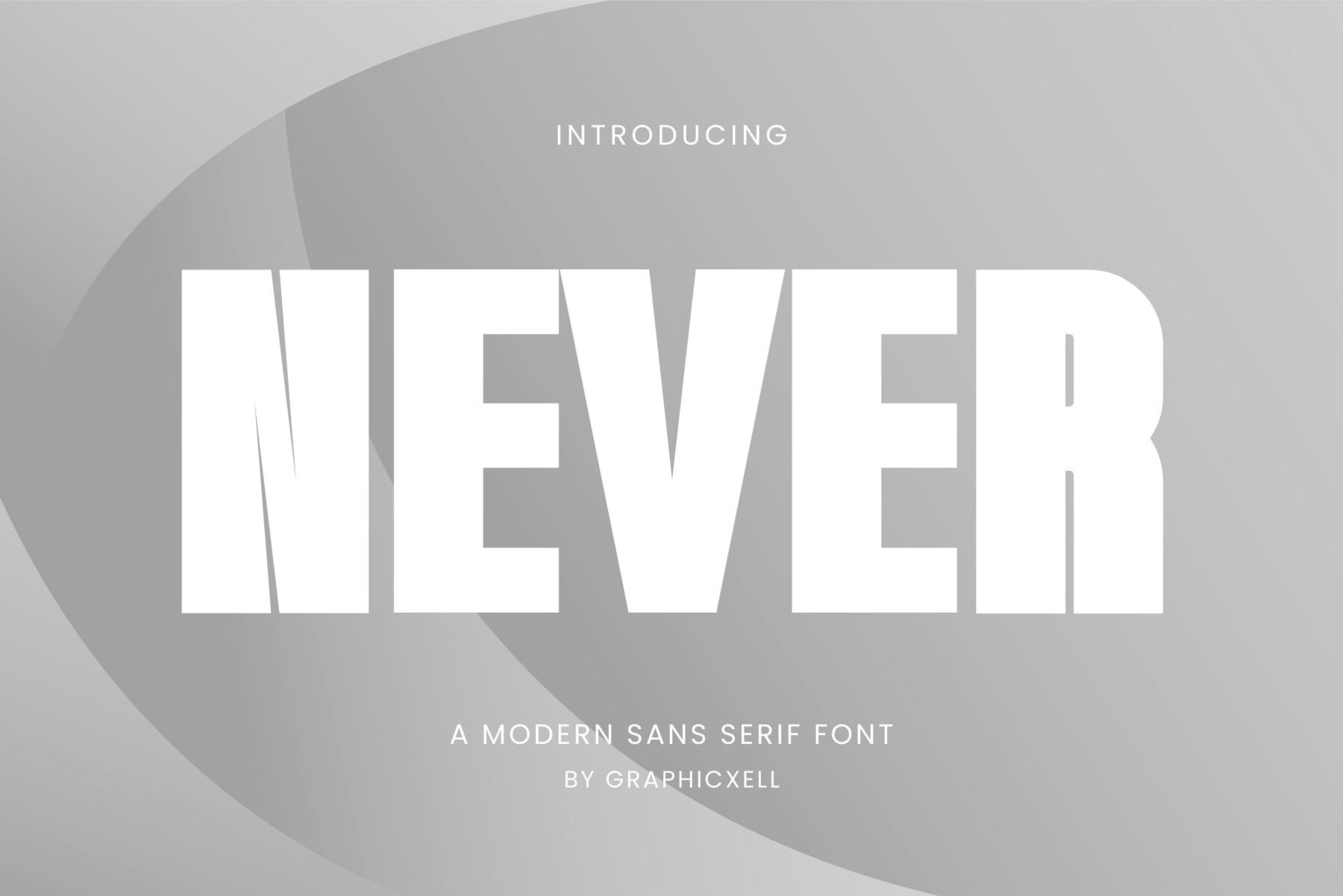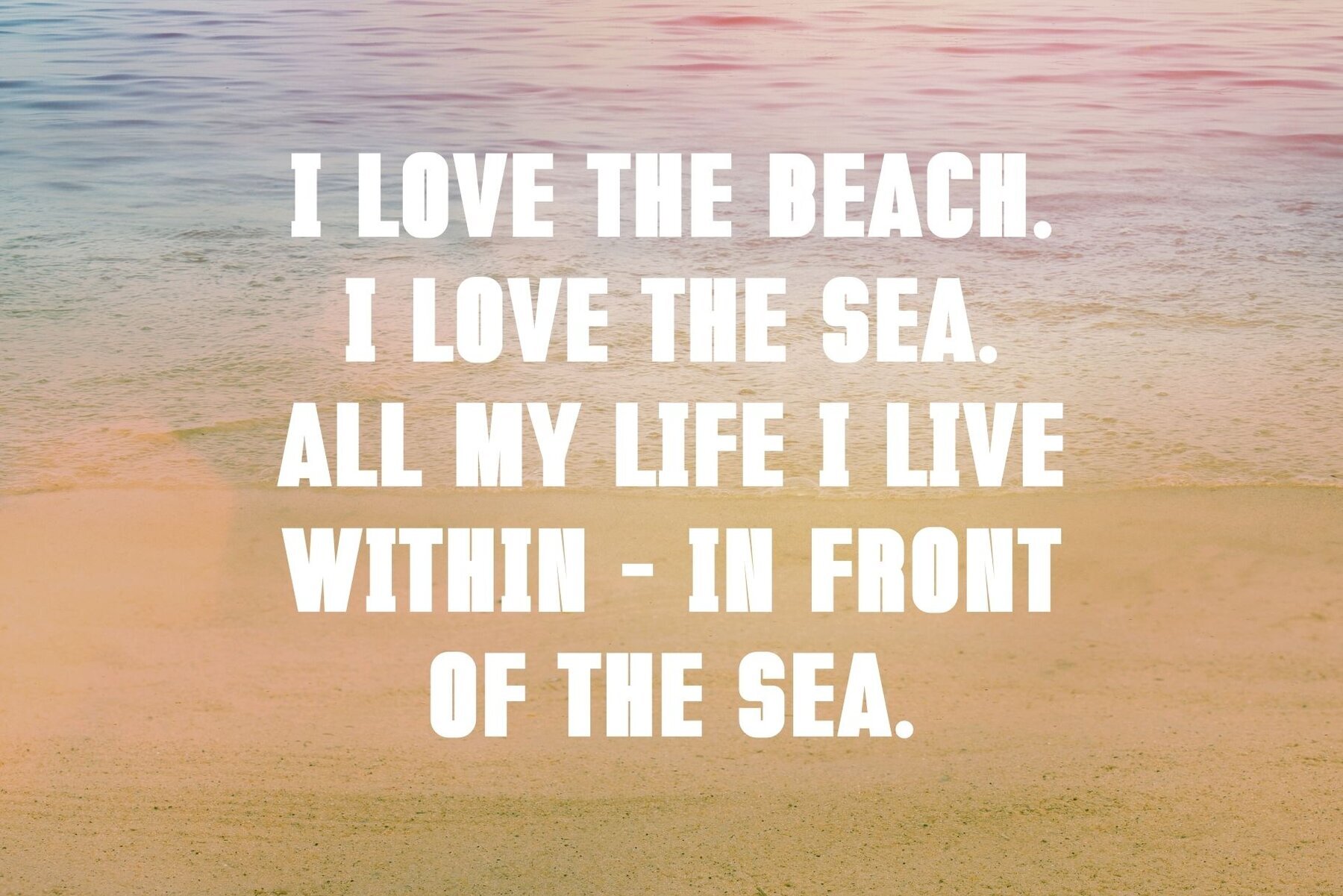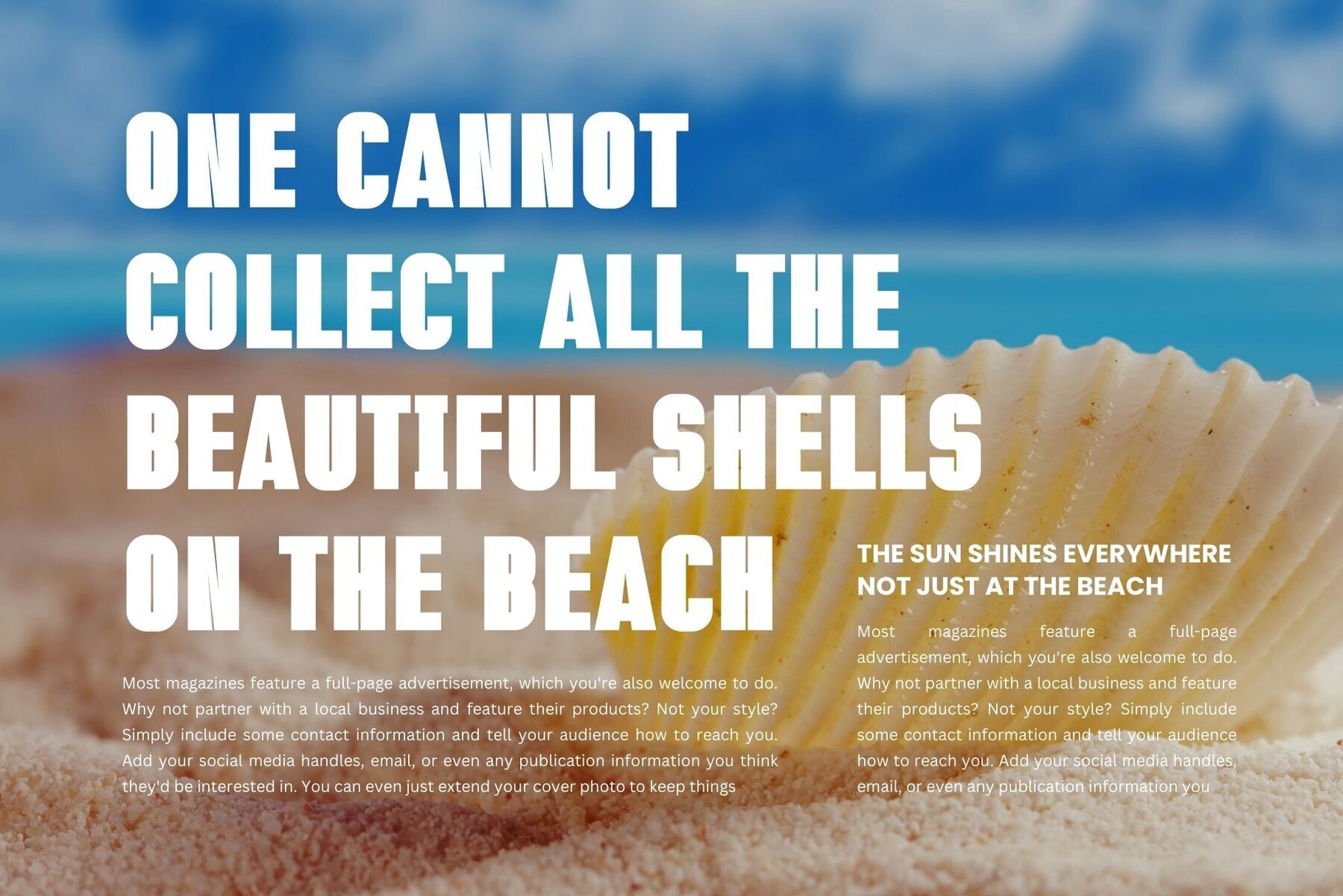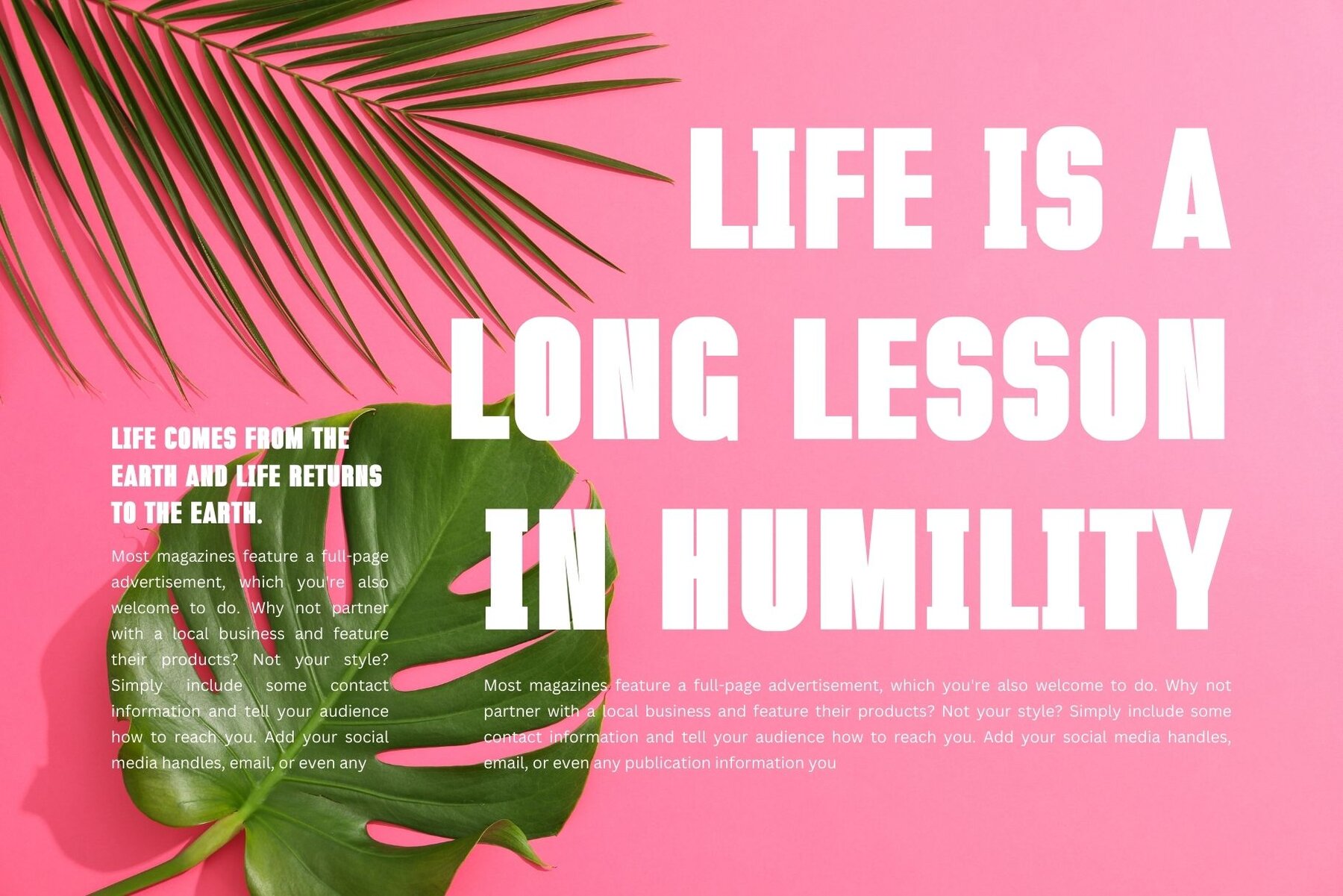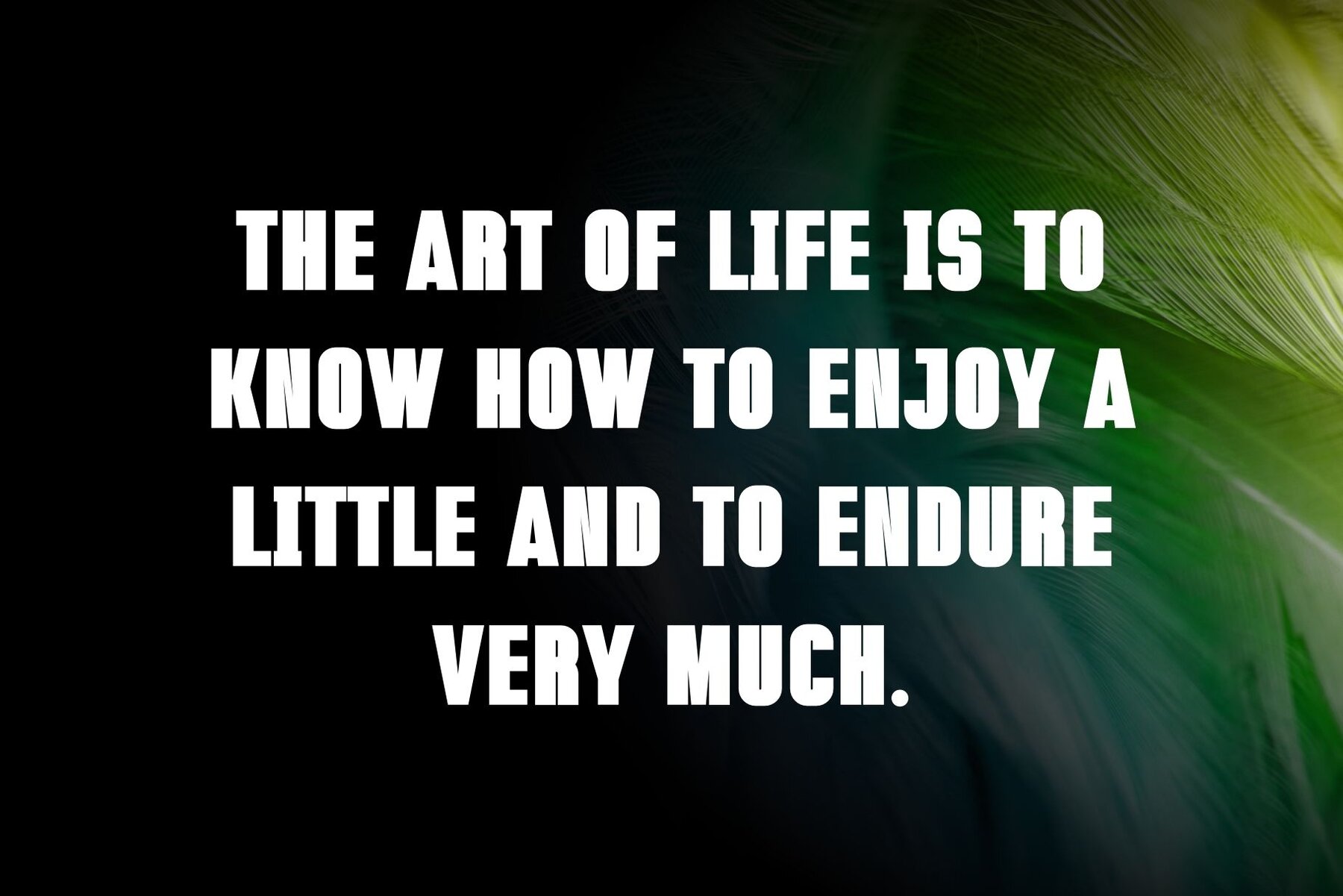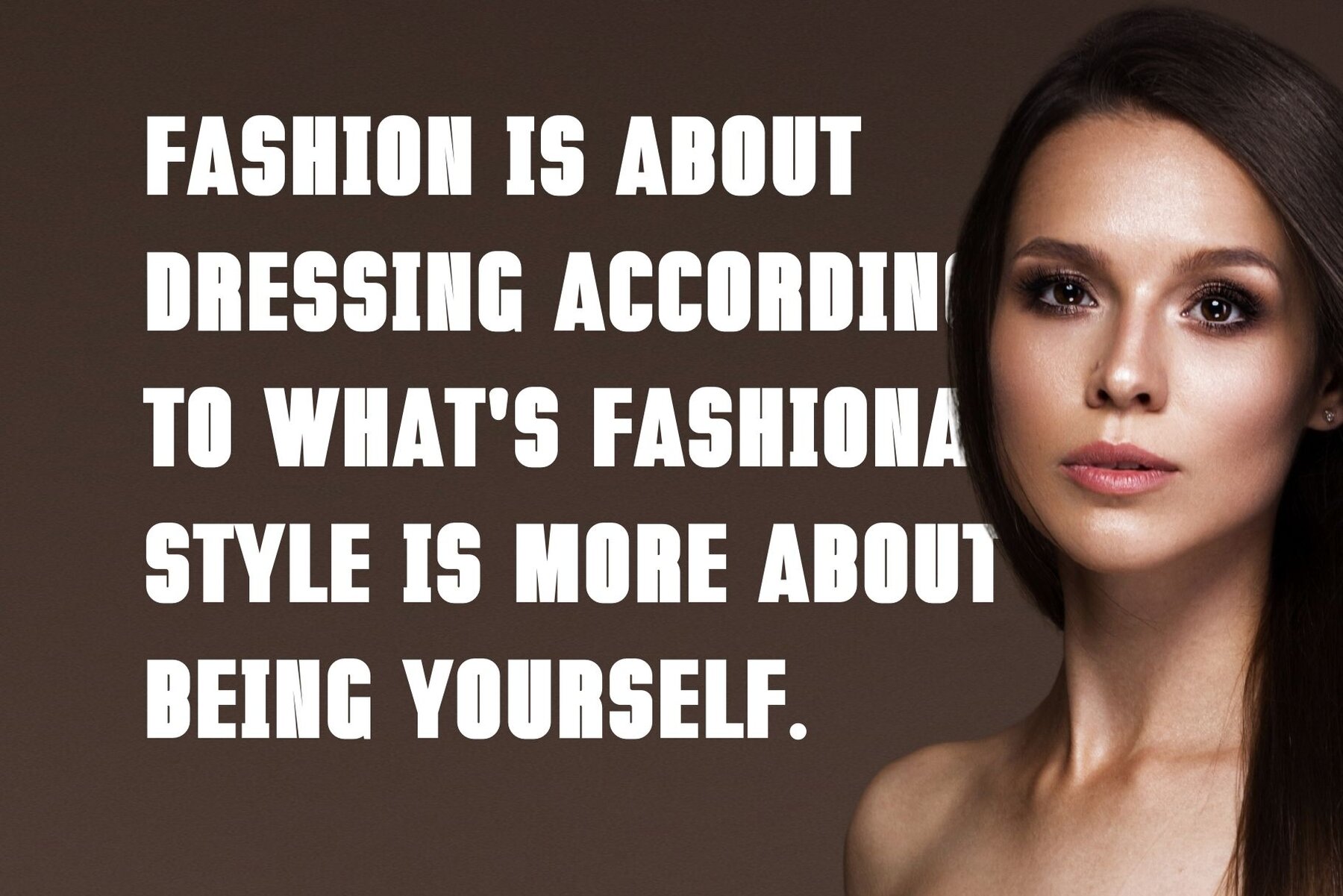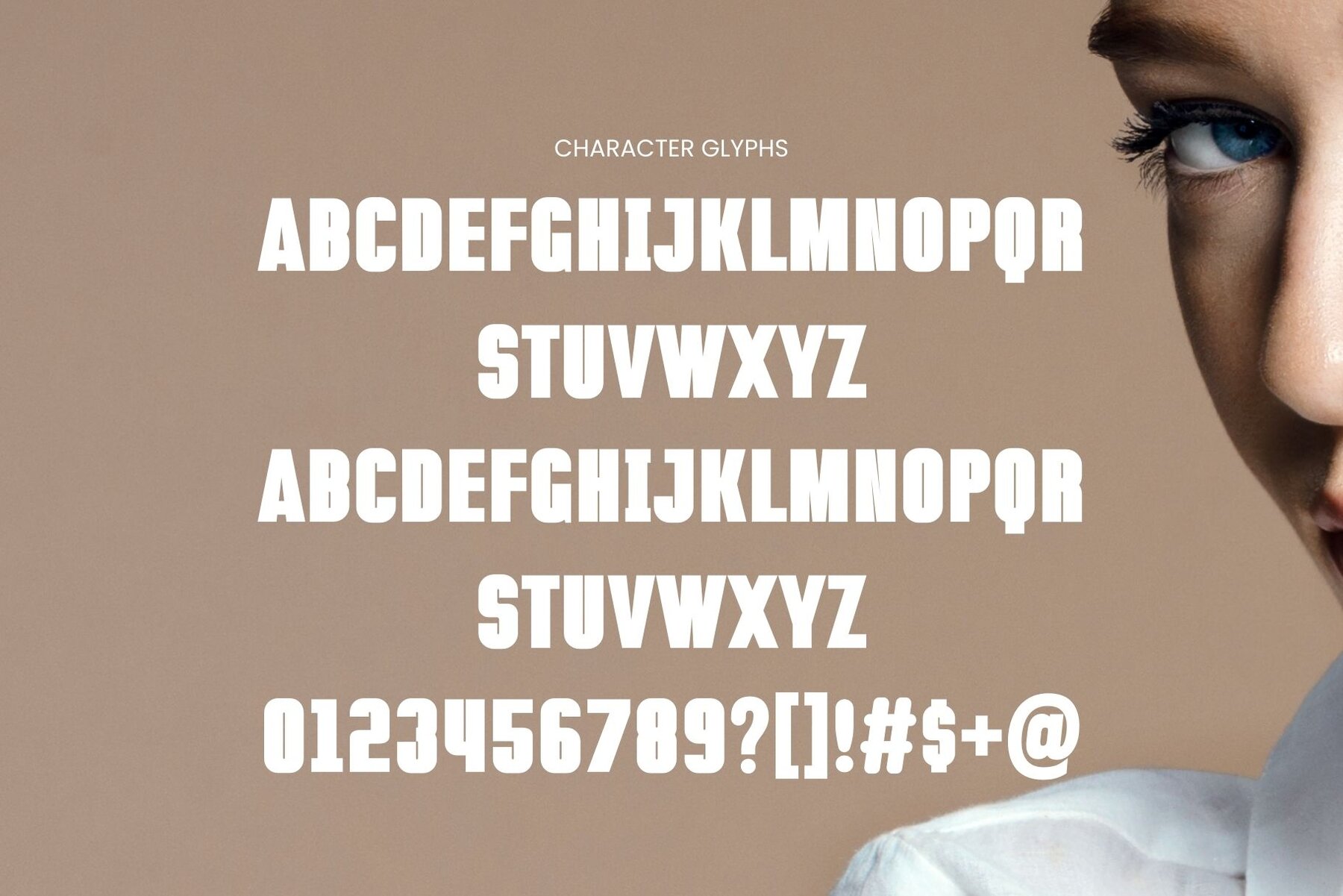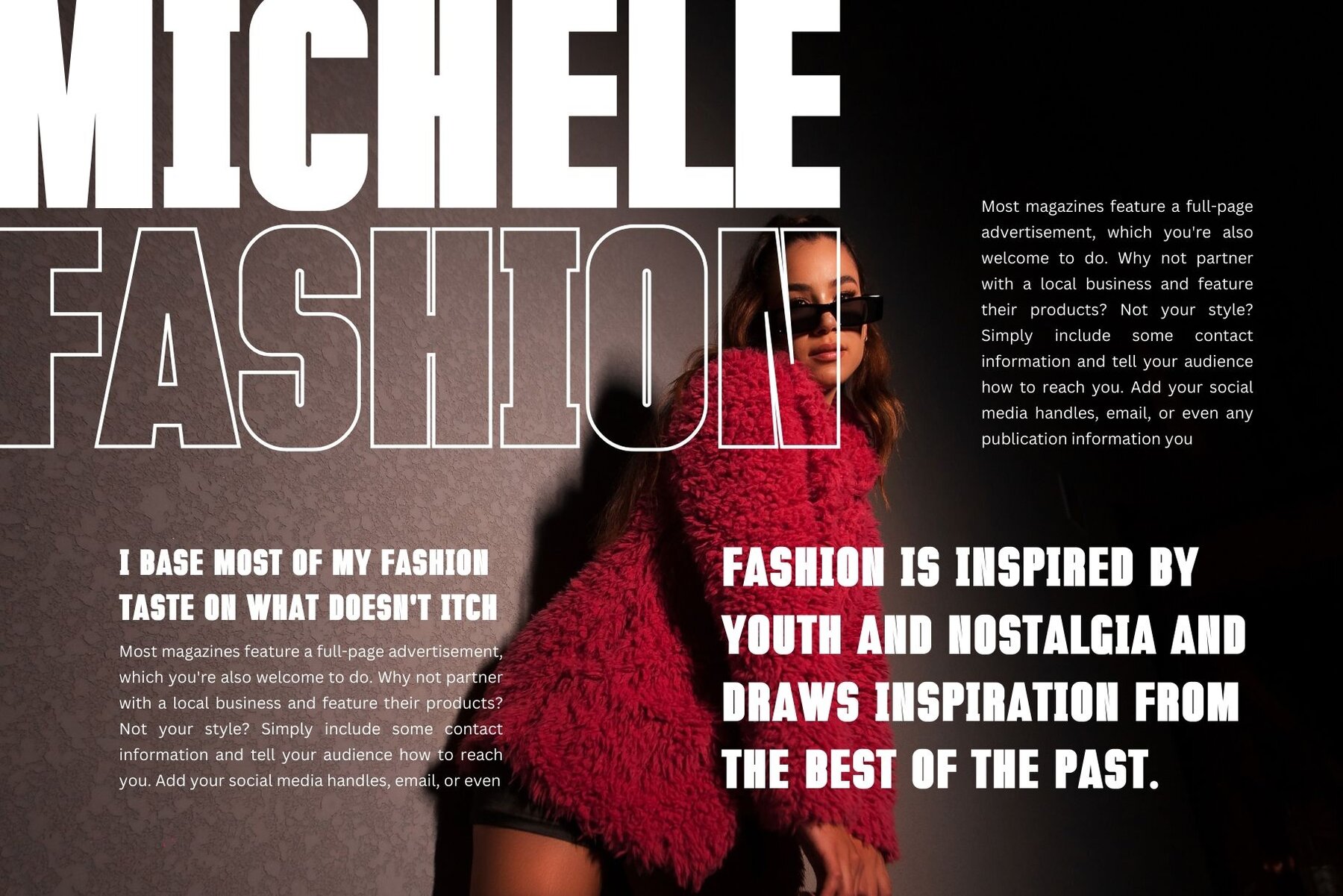
Never Font
Never Regular
Inspired by renowned minimalist designs, the "Never" font by Graphicxell is ideal for creating impactful templates, brochures, advertising materials, branding, logos, invitations, layout designs, elegant crafts, beauty designs, and more.Never by Graphicxell: The Minimalist Logo Font